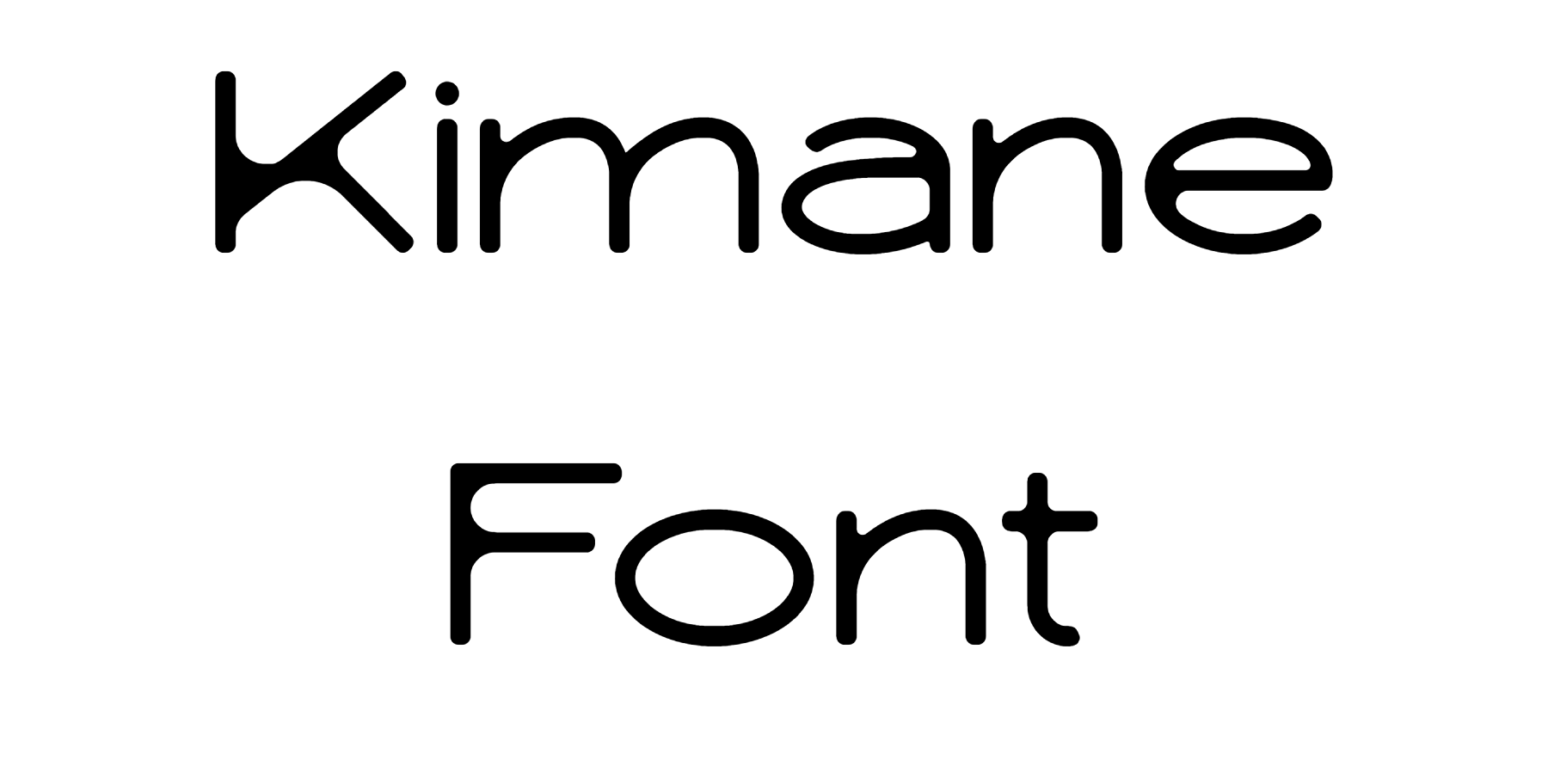
Kimane
Kimane is a basic font designed by Putu Dody Permana and published by Hishand Studio (2026). Plain and practical, it keeps the focus on your words rather than on the lettering. You can download it for free and test it with your own words in the preview above.
- OpenType features: Ligatures, stylistic alternates and 2 stylistic sets
- Extra characters: 18 copy-and-paste alternates (Private Use Area)
With complete upper and lowercase letters and all ten digits, Kimane is ready for real wording, not just a single headline. Common punctuation such as &, !, ? and @ is included as well. It also has the accented letters you need for Spanish, French, German, Portuguese and Italian.
Kimane is a natural fit for everyday text, websites and clean logos. Fonts like this are workhorses: use them for body text, captions and anything people need to read quickly.
Yes. Kimane includes the accented letters needed for Spanish, French, German, Portuguese and Italian, so it works for more than just English.
Add a more decorative display font for the headline if your design needs extra personality.